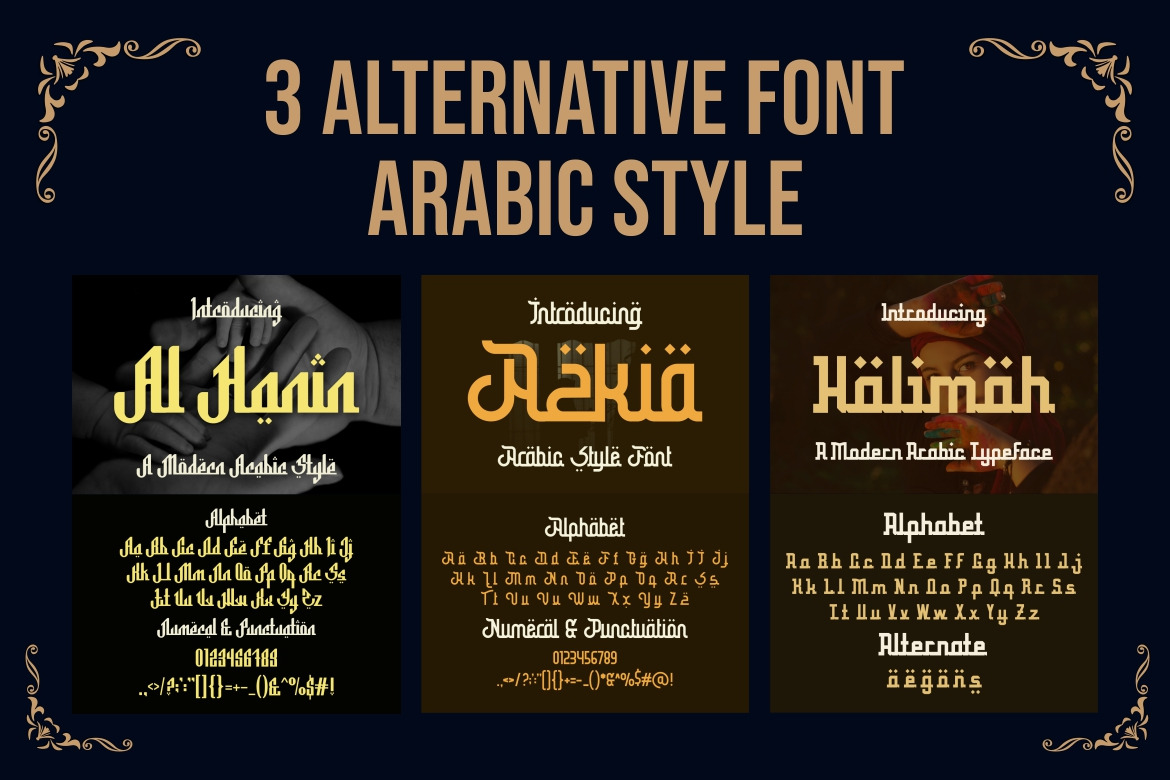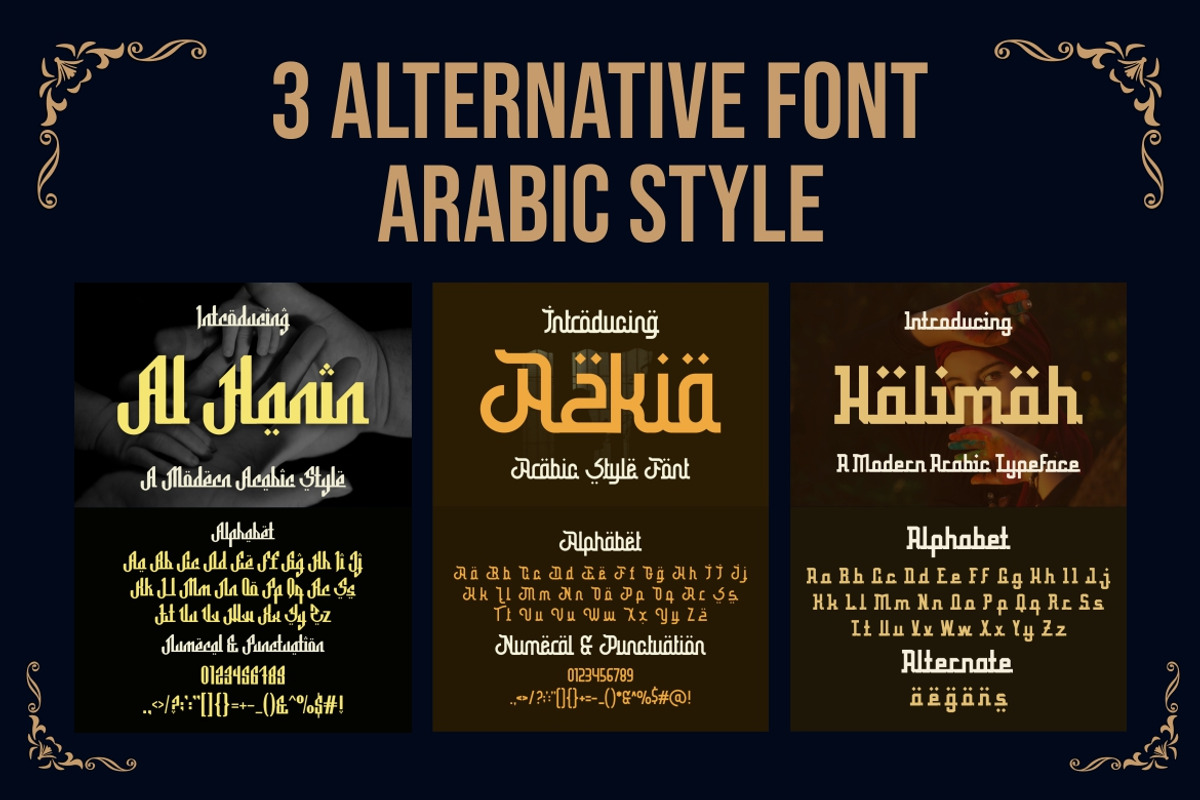
3 Alternative Font Arabic Style
Introducing our new product 3 Alternative Font Arabic Style - Modern Arabic Style Font
3 Alternative Font Arabic Style - The font is suitable for any branding project like logo, template design, Poster, Ramadan, and many more. outstanding in a wide range of contexts.